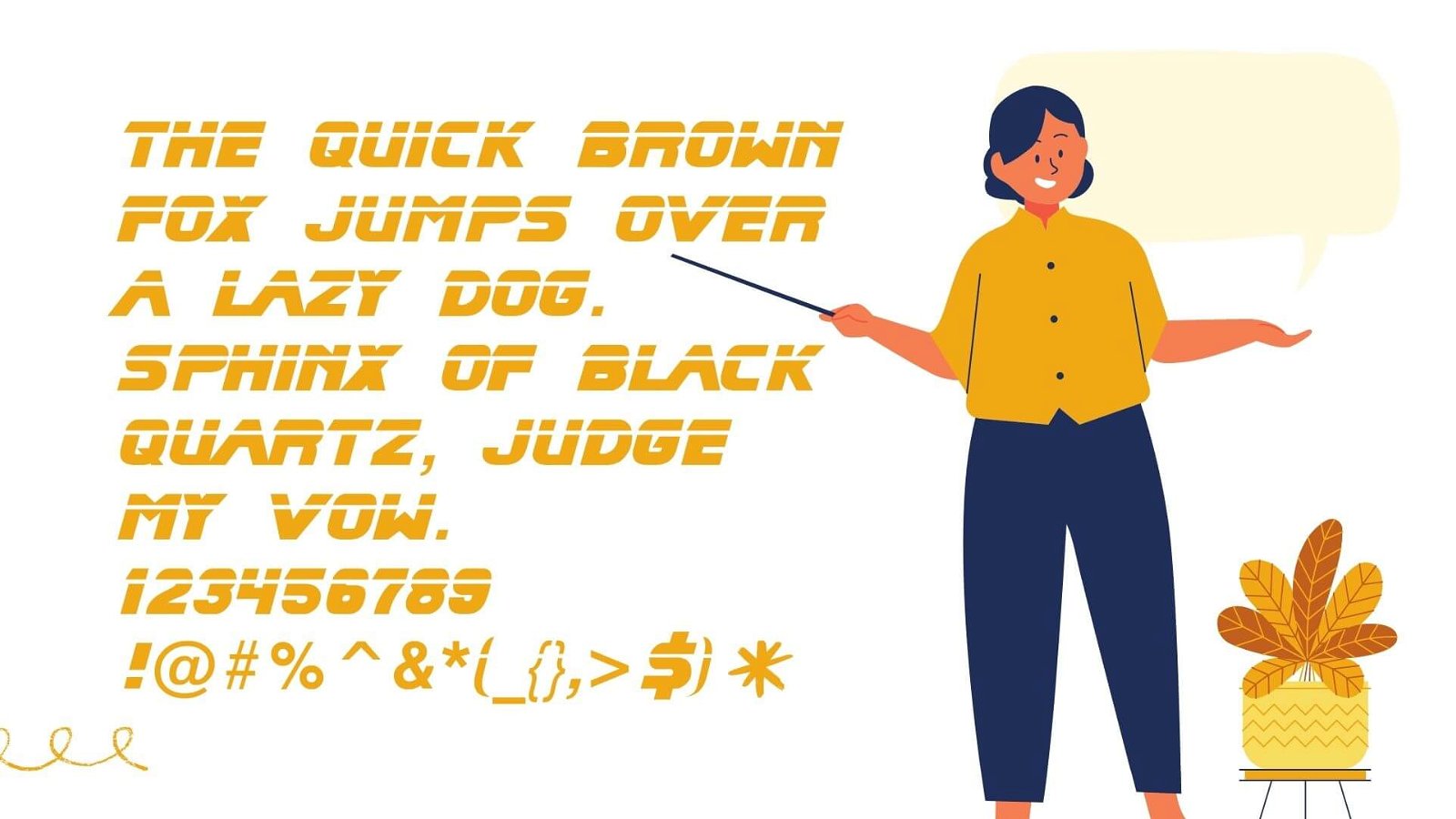
Presenting the new movie and logo-based typeface known as the Blade Runner Font. The styling of this typeface is so much similar to the logo of the popular fiction movie Blade Runner. This movie font got si much appreciation in a short period of time.
The font that is used for the logo of this movie is quite similar to the Blade Runner Font and this provides great results when used with Reona font. The styling and designing of this font have been done by Phil Steinschneider.
Reason to Use Blade Runner Font
The usage of this font is really wide as there are different platforms and scenarios that use this font. The styling of this font is different from other typefaces as we can see this is the styling image.
The styling of this typeface is so much similar to playball font and this combination is used for creating Logos, Headings, Branding Promotion Projects and so much more.
Alternatives of Blade Runner Font
What Is Blade Runner Typeface?
This is the movie Typeface and all the styling of this typeface is really much similar to the styling of the poster of the famous movie Blade Runner.
Where You Can Use Blade Runner Typeface?
The blade runner font is the best fit for many different designs and you should consider using this font with proxima nova font for creating headings or titles and more.
Which Font Does the Blade Runner Movie Use?
The typeface that we see in the logo of the Blade Runner Movie is known as the Blade Runner Typeface, both of these typefaces come in similar letters.